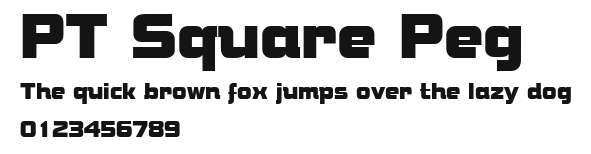
About PT Square Peg.ttf
PT Square Peg.ttf is a modern, elegant sans-serif font designed for ultimate readability and visual harmony. Perfect for branding, headlines, web design, and print materials.